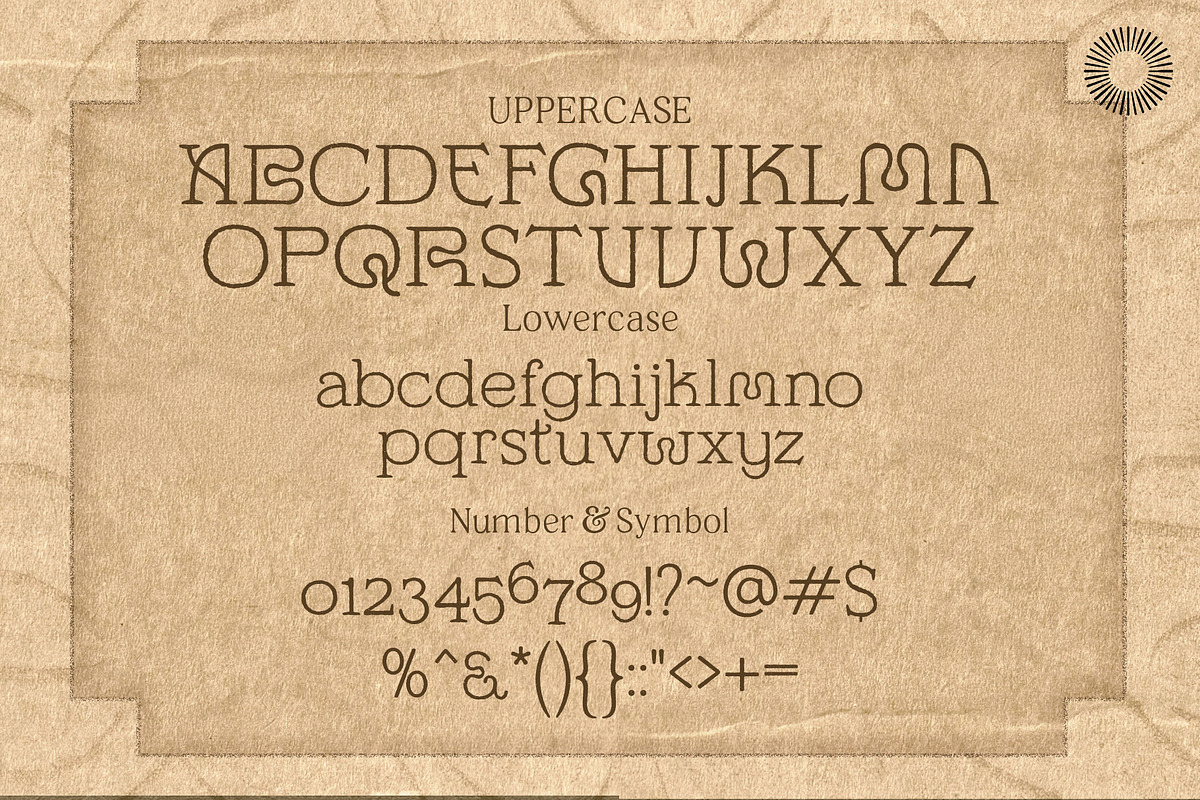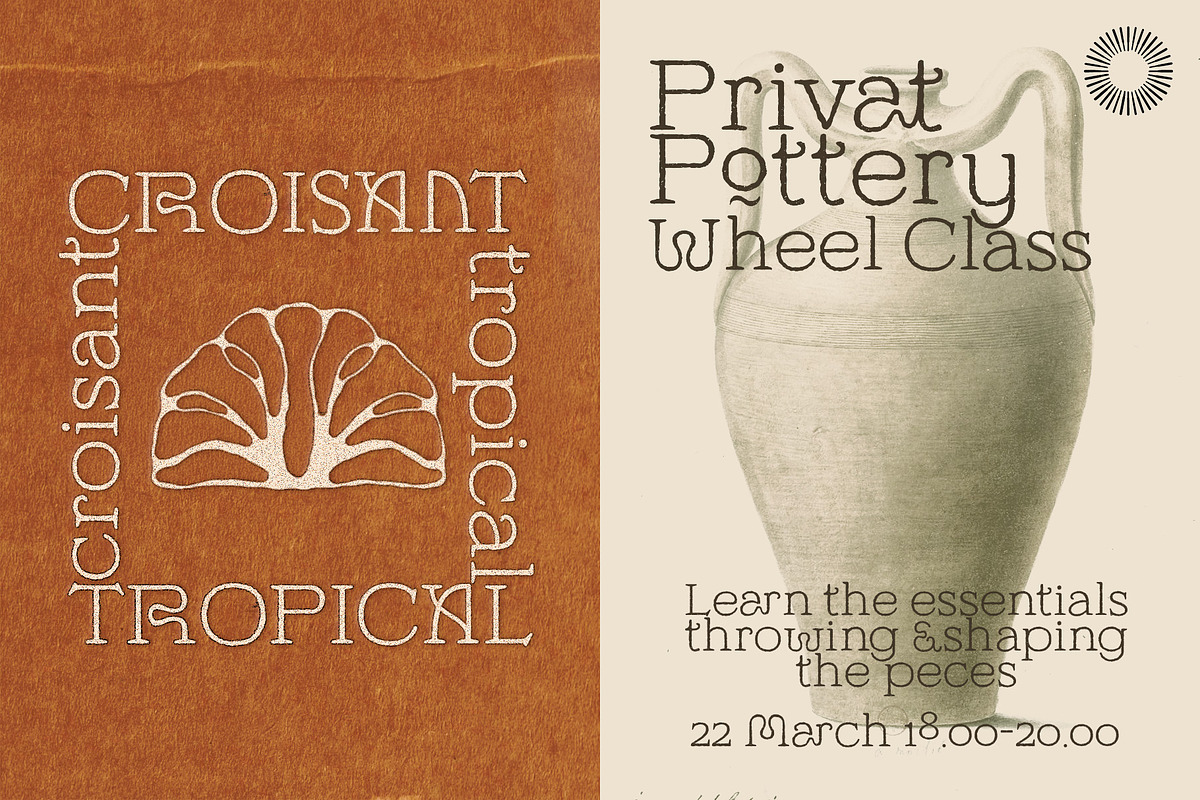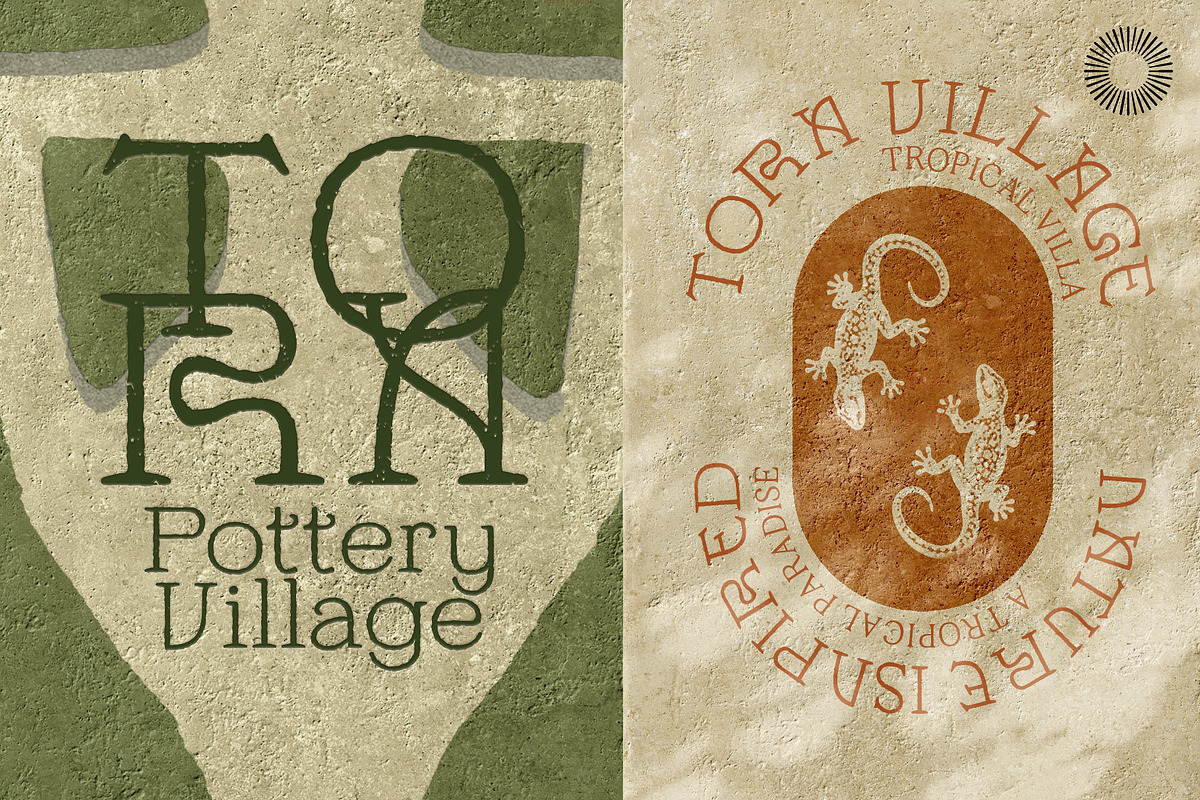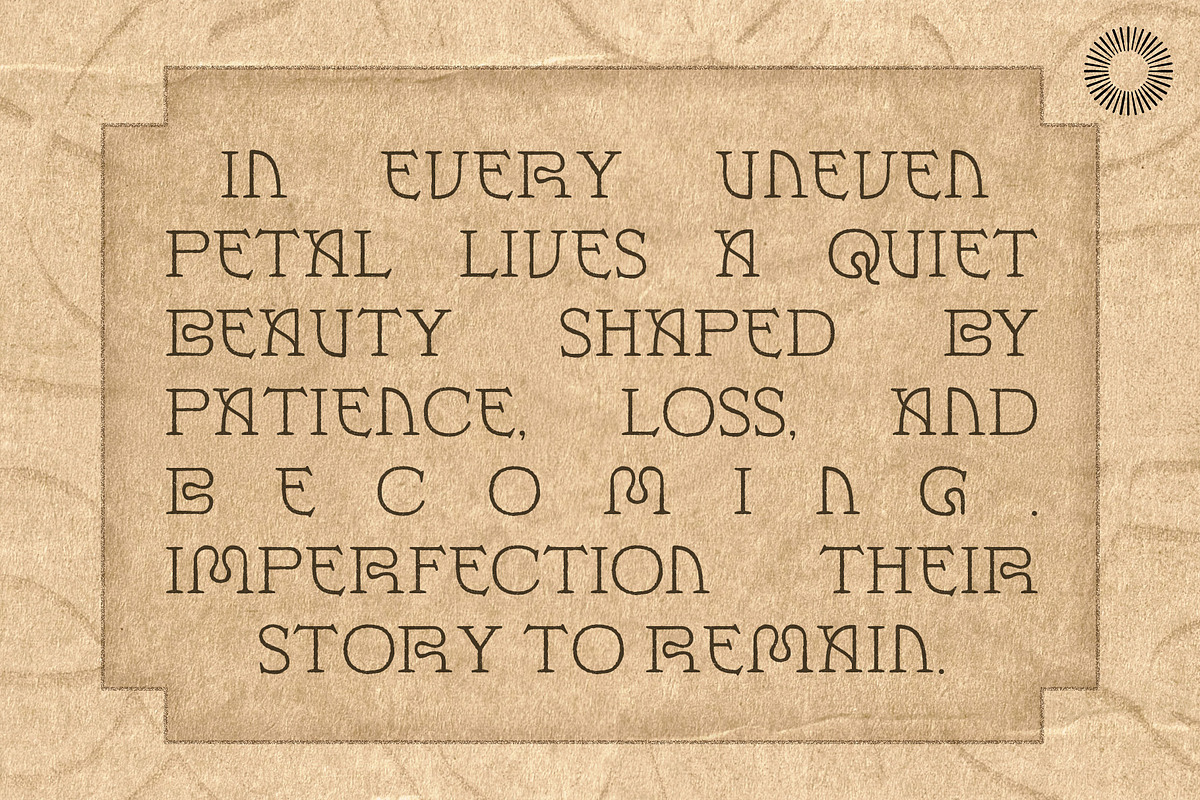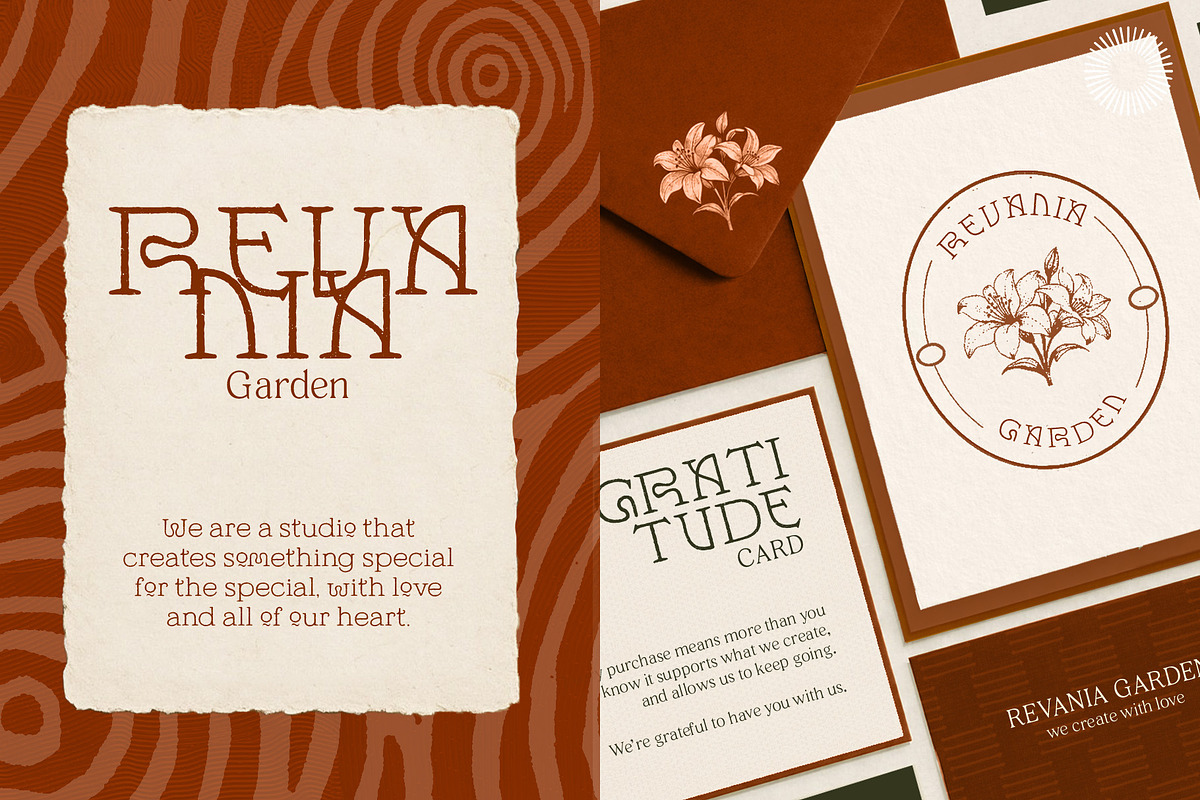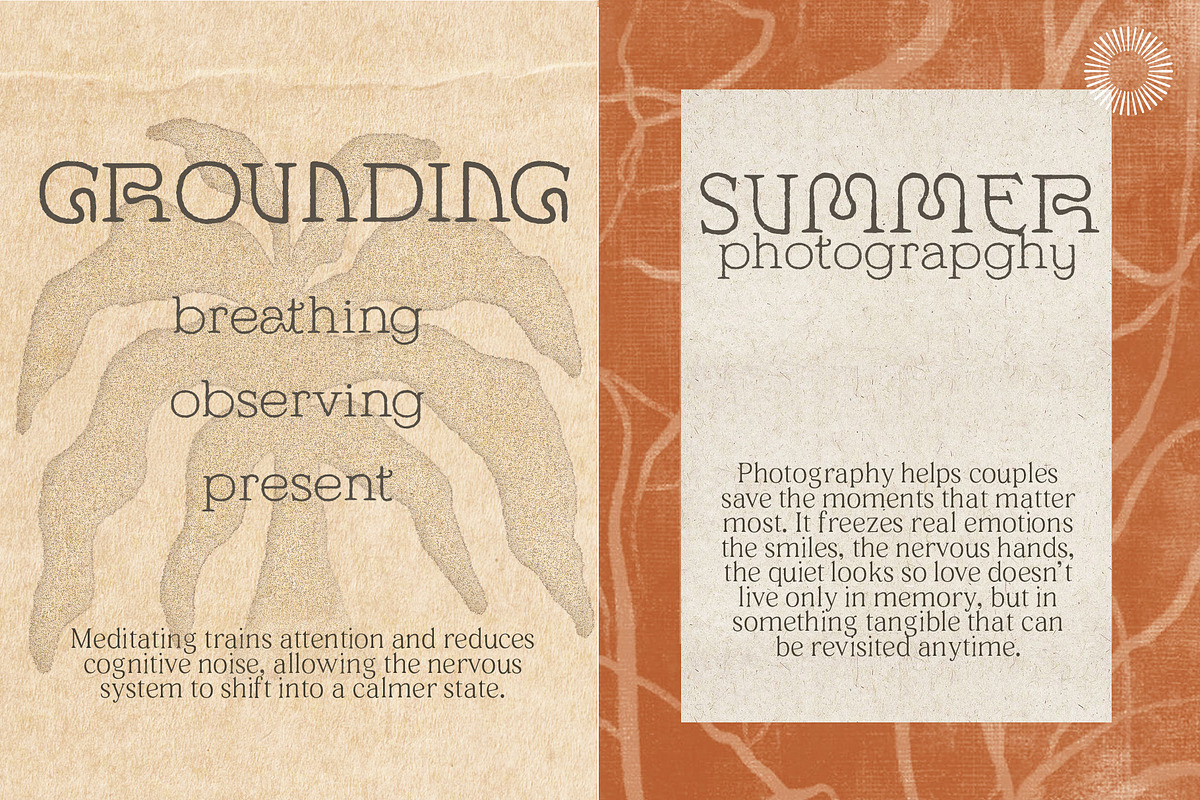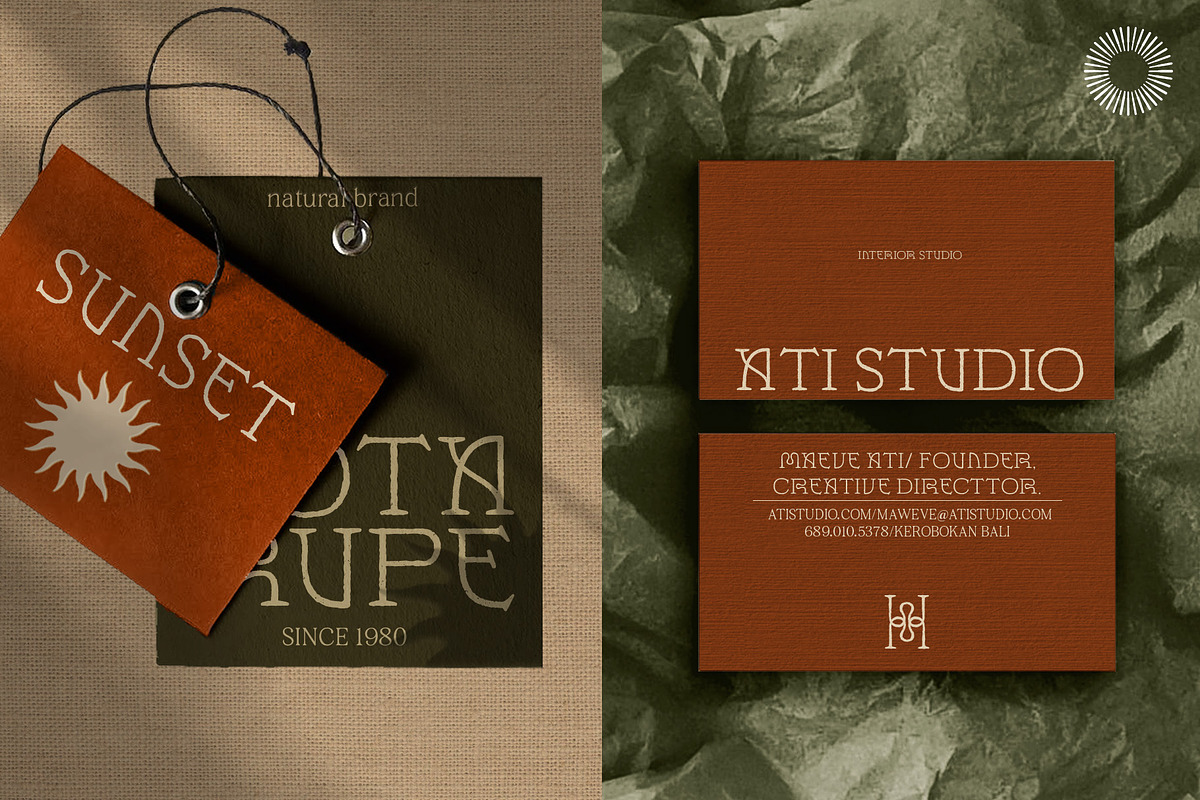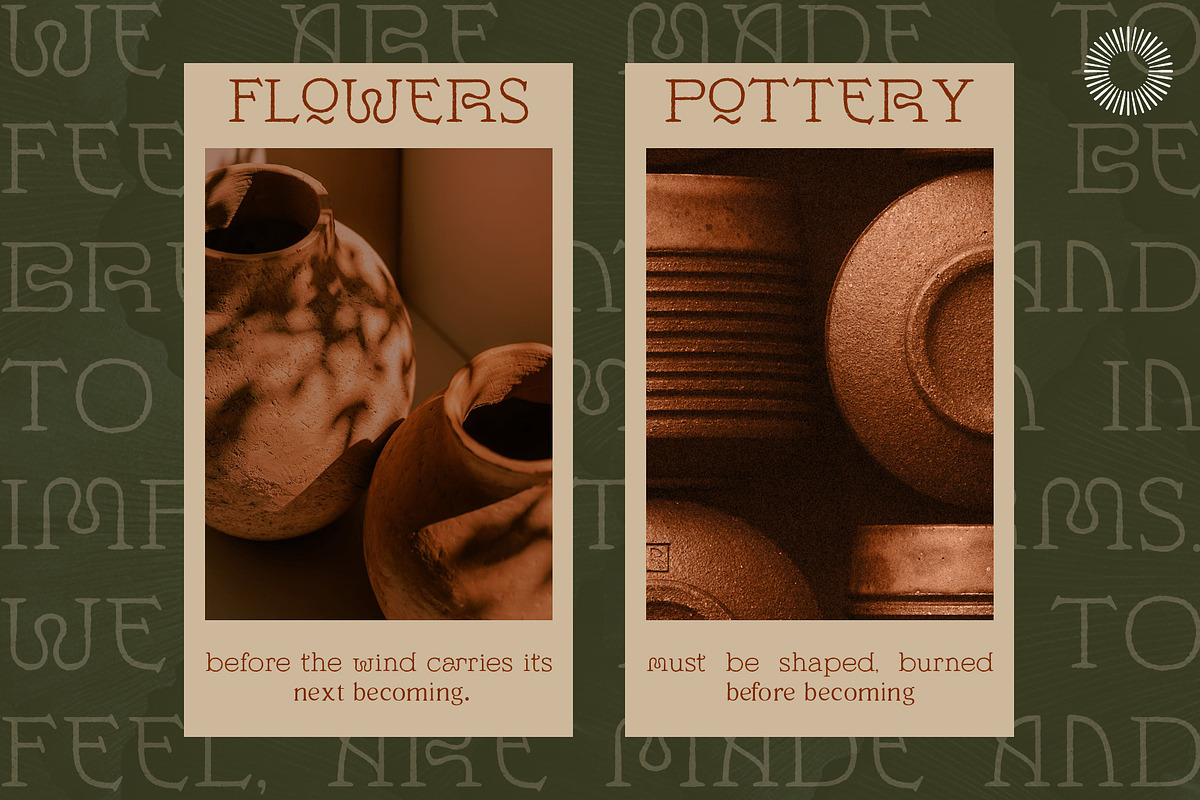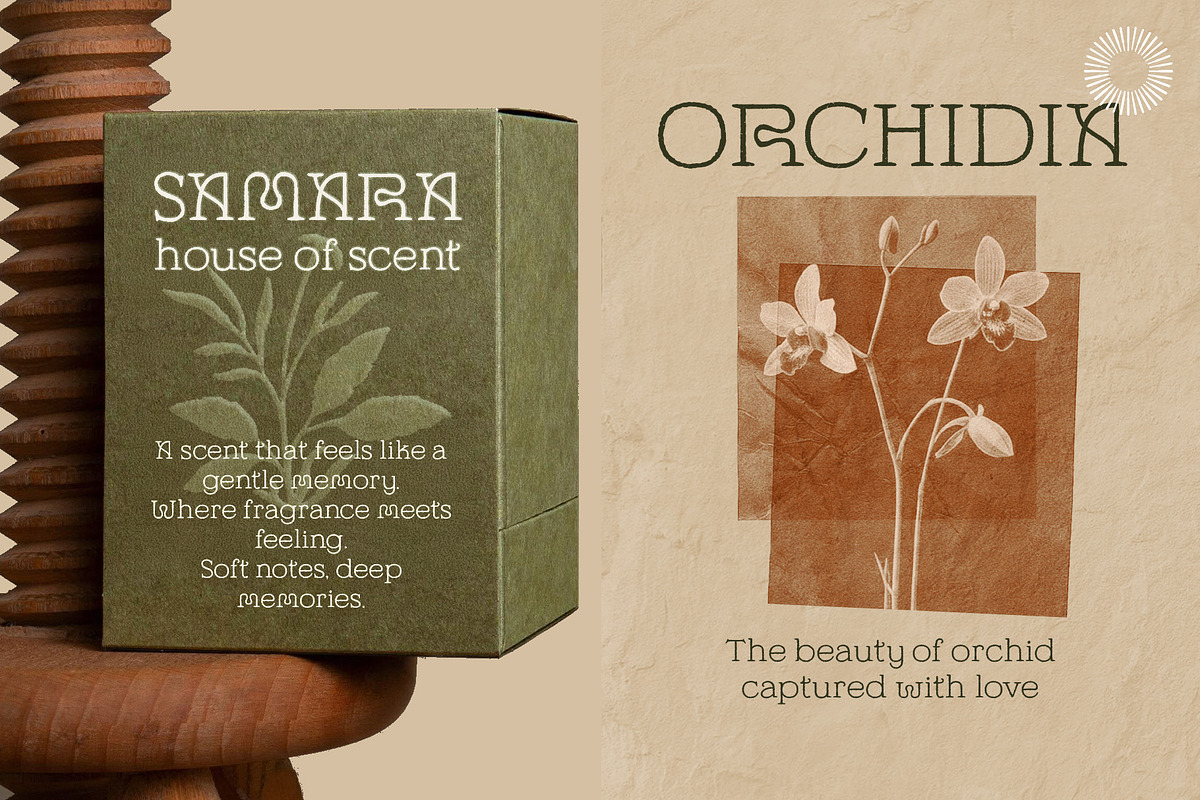
Thane Lantera - Old Press Print
Thane Lantera is a vintage serif display font inspired by old press prints, aged paper, and the quiet beauty of handmade lettering. It blends classic serif structures with organic, slightly irregular strokes, creating a warm and nostalgic feel without losing readability. The letterforms feel carved rather than drawn — giving the impression of traditional printing, folklore books, and antique signage. Subtle imperfections in each glyph add character and texture, making the font feel human, crafted, and timeless. Thane Lantera works beautifully for designs that need a poetic, rustic, or editorial atmosphere. It brings a sense of history, warmth, and storytelling into modern layouts.
- Full set of uppercase & lowercase letters
- Numbers & basic punctuation
- Multilingual support (basic Latin)
- Vintage serif display style
- Handcrafted, organic stroke details
- Old-press / letterprint aesthetic
- Clean enough for headlines, textured enough for character
- Works well in both digital and print designs
Best For
- Thane Lantera is perfect for:
- Book covers & editorial titles
- Branding & logo design
- Posters & album artwork
- Packaging with a rustic or heritage theme
- Quotes, poetry, and storytelling layouts
- Vintage, botanical, folklore, or wabi-sabi inspired designs